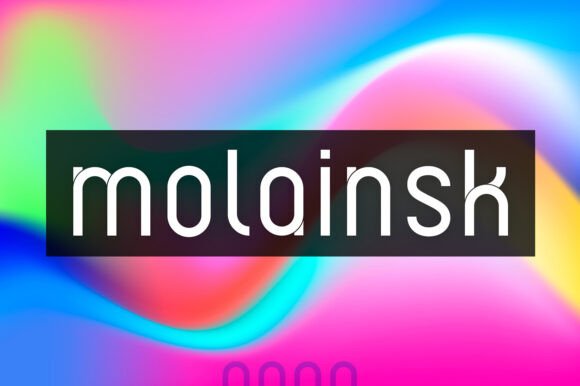
Pangirounded Expregular: A Modern Sans Serif for Editorial Design
Recently, I embarked on a redesign project for a lifestyle blog, and the choice of font was critical. After testing several options, Pangirounded Expregular stood out as the perfect fit. This premium font, with its clean geometric shapes and friendly, modern vibe, brings a unique character to any publication.
Using Pangirounded Expregular for Blog Headers and Article Titles
One of the first things I noticed about Pangirounded Expregular is its versatility in creating eye-catching blog headers and article titles. The font's bold, rounded forms make it ideal for grabbing attention without overwhelming the reader. For the blog, I used Pangirounded Expregular for the main header, and it immediately set a welcoming and contemporary tone.
Pangirounded Expregular in Magazine Covers and Ebook Titles
When it came to designing the cover for a recipe ebook, Pangirounded Expregular once again proved its worth. The font's mix of circles, squares, and triangles provided a playful yet professional look. The cover design felt both approachable and high-quality, which is essential for an ebook that aims to engage and inspire readers.
Pangirounded Expregular for Newsletter Graphics and Pull Quotes
In the realm of newsletters, Pangirounded Expregular shines in creating engaging graphics and pull quotes. For a recent newsletter, I used the font to highlight key points and create visually appealing sections. The result was a more dynamic and reader-friendly layout, enhancing the overall reading experience.
Pangirounded Expregular in Printables and Worksheets
For a coaching workbook, Pangirounded Expregular was a natural choice for section headings and decorative accents. The font's readability and modern aesthetic made it easy to use in both digital and print formats. The workbook felt cohesive and professional, while still maintaining a friendly and inviting atmosphere.
Practical Considerations for Using Pangirounded Expregular
While Pangirounded Expregular excels in many editorial uses, it's important to consider its suitability for different content types. For instance, it may not be the best choice for body copy or small captions, where a more traditional sans serif font might be more appropriate. However, for titles, subtitles, and decorative elements, Pangirounded Expregular is an excellent option.
Font Pairing for Editorial Design
To create a balanced and visually appealing layout, I often pair Pangirounded Expregular with a clean sans serif font for body text and a classic serif font for longer passages. This combination maintains the modern and friendly feel of Pangirounded Expregular while ensuring optimal readability and a professional appearance.
In conclusion, Pangirounded Expregular is a versatile and stylish font that can elevate any editorial design project. Whether you're working on a lifestyle blog, recipe ebook, or coaching workbook, this font offers a unique blend of modernity and friendliness that can help you create engaging and memorable content.